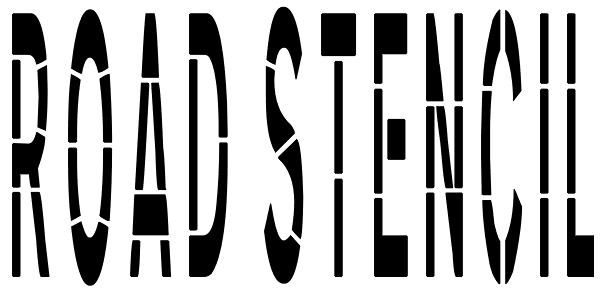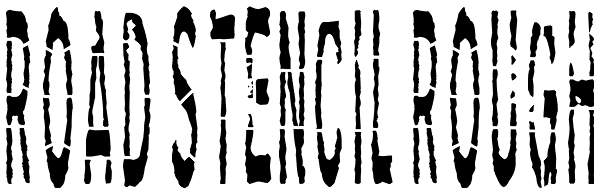
Road Stencil
Road Stencil is a font based on painted street markings. The letters are stretched roughly six times their normal height so that when viewed from an angle, the text is seen as proportional. If you're looking to Photoshop a street scene, this is your...
Road Stencil
Road Stencil Rough